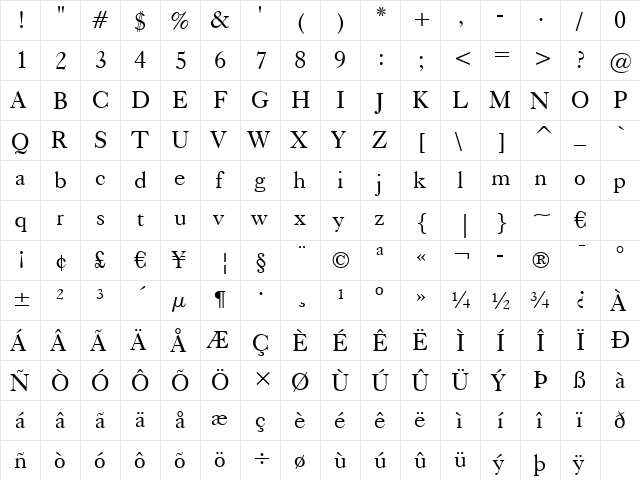
Caslon540 BT Roman
Design Context for Caslon540 BT Typeface
Caslon540 BT offers clean, dependable letterforms without strong stylistic allegiance, making it a practical choice for designers who need flexibility.
Pro Tip: Use Caslon540 BT in both headline and body roles to test its range before committing to a single application.